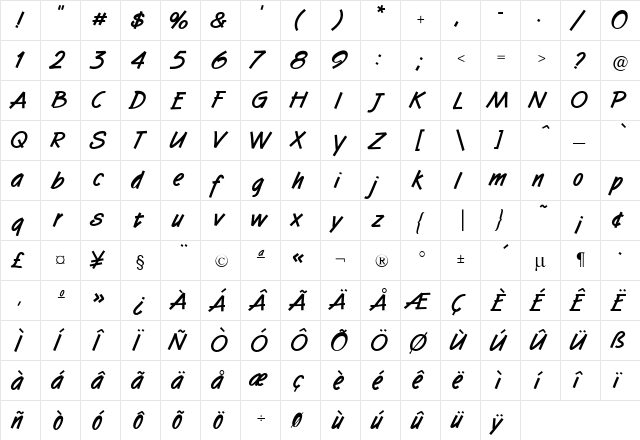
Tomboy Bold
Design Context for Tomboy Typeface
Tomboy is a composed and adaptable typeface that performs quietly and consistently across a wide range of design contexts. Its bold stroke weight gives it real presence on the page.